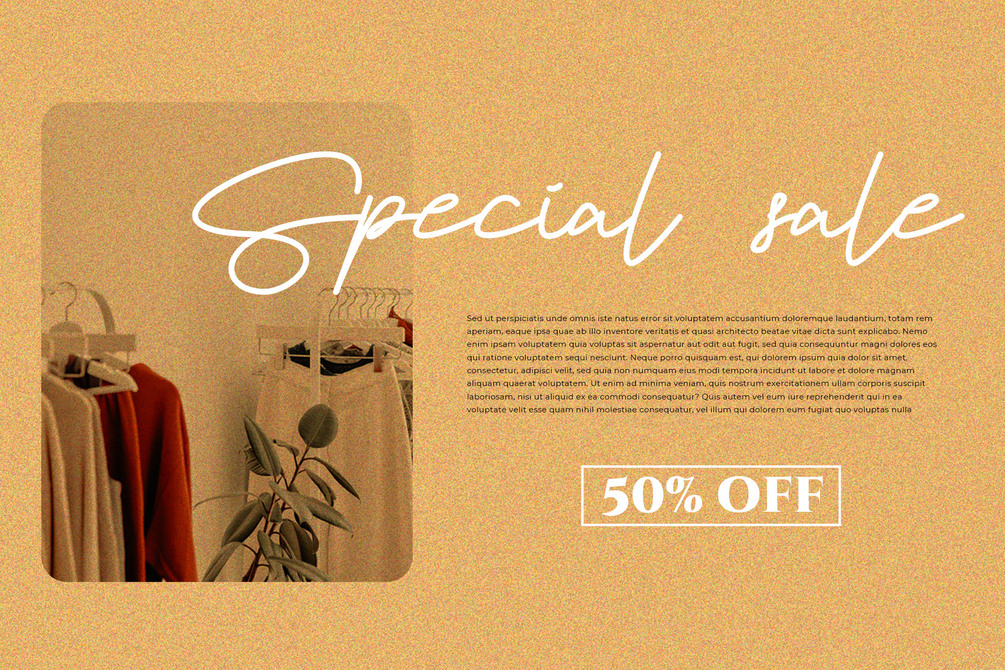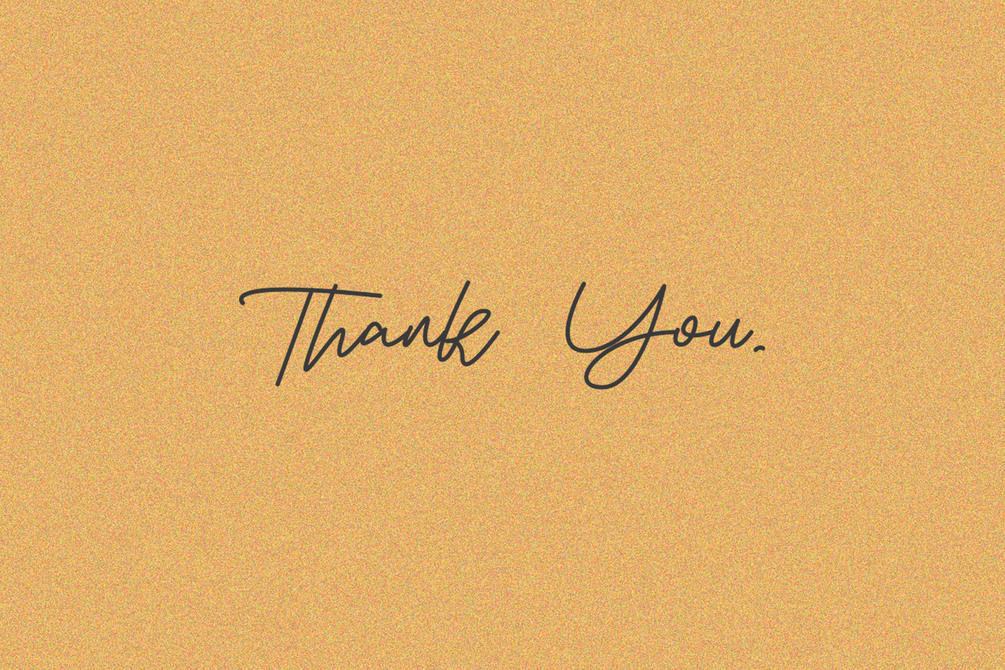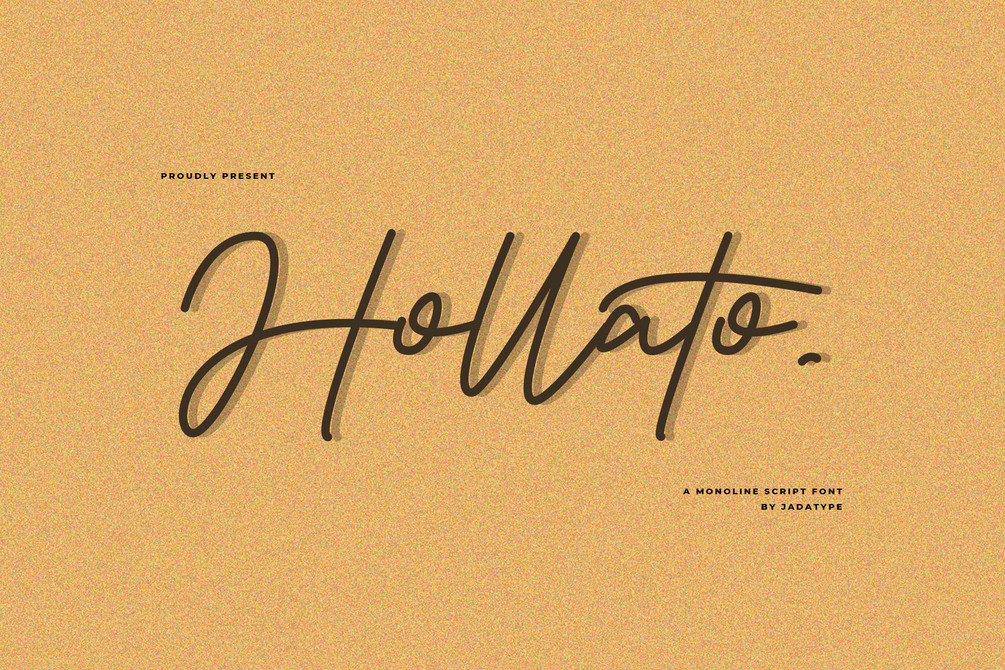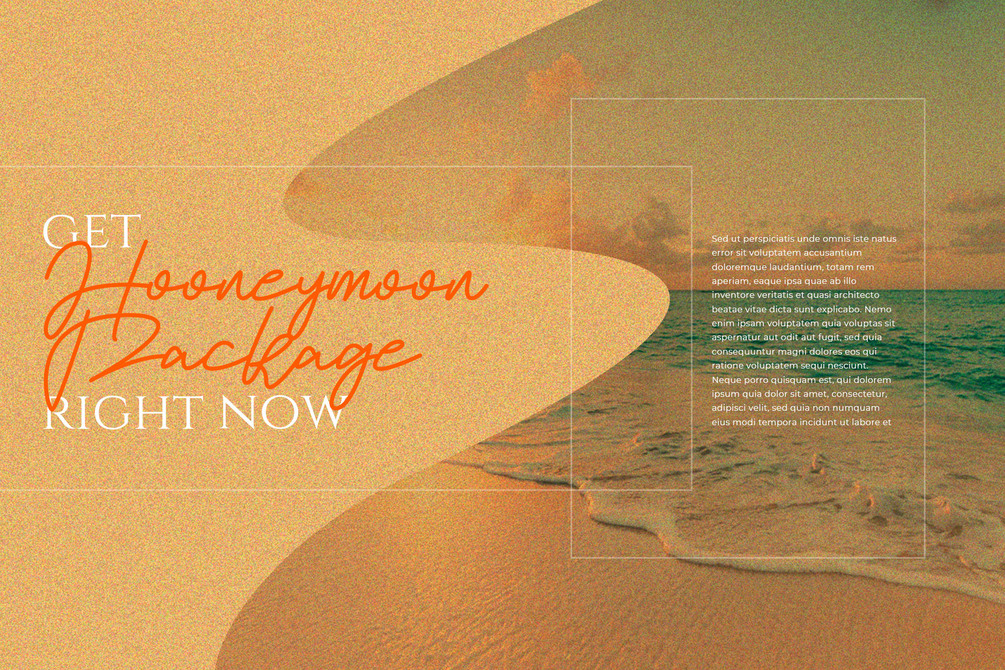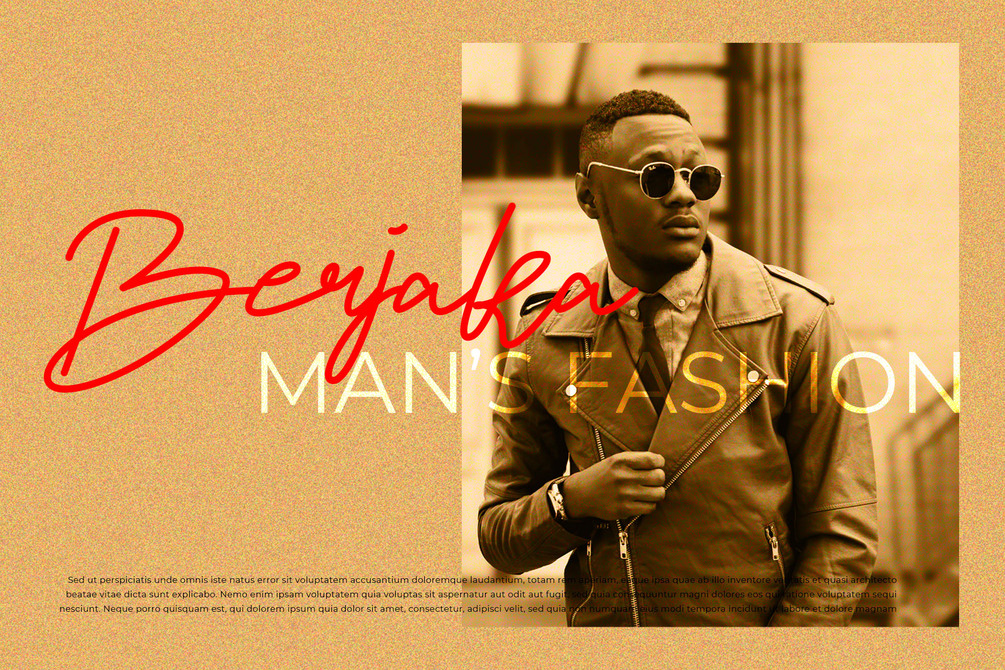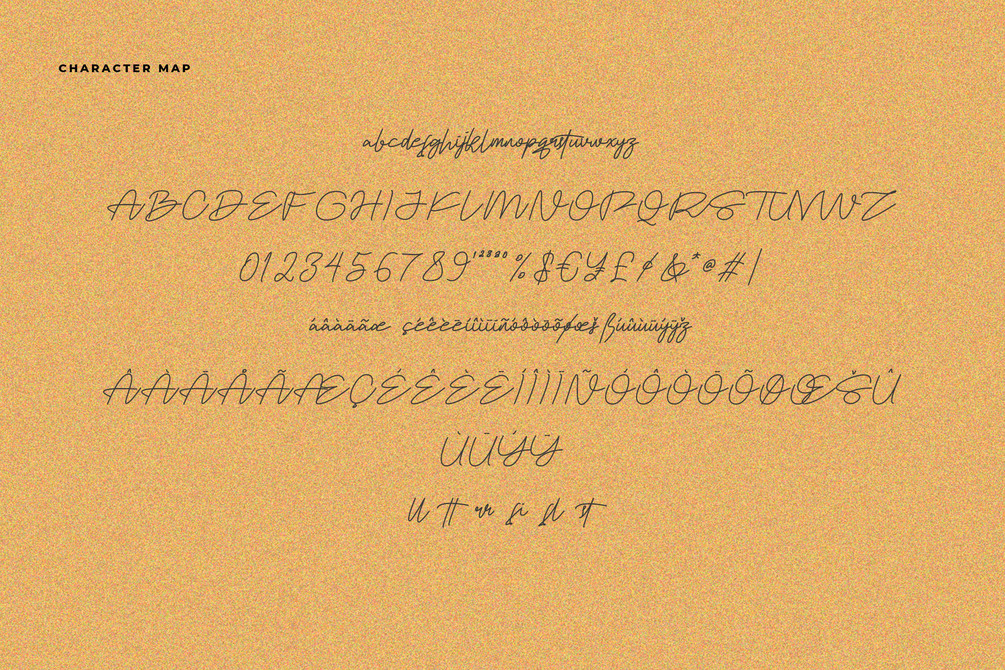
Hollato Font
Belloti is a script font that comes with an elegant stylish monoline style. suitable for product, Branding, social media, logotype and so on. contains standard English letters, numbers, punctuation, and several accents that support multilingualism.